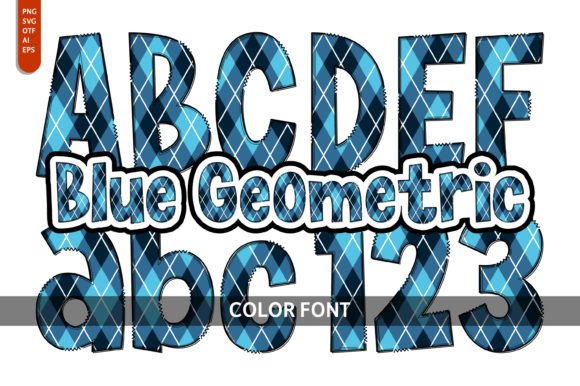
Blue Geometric: A Playful Display Font for Creative Projects
Finding a font that balances playful energy with clear readability can feel like a search for a needle in a haystack. Many typefaces lean too far into whimsy, sacrificing legibility, or become too sterile when aiming for clarity. Blue Geometric occupies a unique space in modern typography. It’s a creative font designed specifically for projects that need to inject personality, color, and a distinct artistic flair. This isn’t just another typeface; it’s a design asset built to make an immediate visual impact.
Visual Style and Personality
At its core, Blue Geometric is a color font. This means the blue geometric patterns and shapes you see in its preview are baked directly into the font file. When you type, you get those colorful, structured designs without needing to apply gradients or textures manually. The visual character is bold and engaging. Each letterform combines geometric precision with a sense of fun, making it a standout display font. It avoids the rigidity of some sans serif fonts while steering clear of the overly casual feel of many handwritten or script fonts. The result is a typeface that feels contemporary, artistic, and intentionally designed to capture attention.
Where Blue Geometric Truly Shines
The strength of a font like Blue Geometric lies in its ability to set a specific tone instantly. It’s ideal for any project where the goal is to be noticed and remembered. Think about the projects where visual personality is non-negotiable:
- Children's Books and Educational Materials: This is a natural fit. The font’s colorful, playful aesthetic creates an inviting and engaging reading experience for young audiences. It supports the narrative with its visual charm, making pages feel dynamic and fun.
- Event Invitations and Greeting Cards: For birthday parties, baby showers, or festive announcements, Blue Geometric adds a layer of celebration. It conveys joy and creativity, setting the mood before the recipient even reads the details.
- Branding for Youthful or Creative Audiences: If your brand identity needs to speak to a demographic that values innovation and fun—think toy stores, art studios, or kids' clothing lines—this font can become a cornerstone of your visual language. It helps build brand recognition through its distinctive look.
- Posters and Social Media Graphics: In a crowded digital or physical space, a bold display font cuts through the noise. Use Blue Geometric for headlines on posters, Instagram stories, or Pinterest pins to stop the scroll and make a memorable impression.
It’s also a fantastic choice for packaging design for products aimed at families or the creative market. The font’s inherent playfulness can make a product feel more approachable and exciting on the shelf.
Practical Guidance for Using Blue Geometric
Adopting a new premium font into your workflow requires more than just liking its look. You need to ensure it’s the right tool for the job and that you can use it effectively. Here’s how to approach Blue Geometric with a practical mindset.
Evaluating Project Fit and Readability
First, assess your project’s primary goal. Is it to inform, persuade, or delight? Blue Geometric excels at the latter. For long-form body text in a report or a novel, it would be the wrong choice. Its detailed, decorative nature is best reserved for headlines, logos, and short, impactful phrases. Always prioritize readability. Use it for titles where the text is large, and pair it with a clean, simple serif font or sans serif font for any supporting copy. This contrast creates a strong visual hierarchy, guiding the reader’s eye naturally.
Font Pairing and Technical Considerations
A successful design often hinges on smart font pairing. Because Blue Geometric is a strong visual statement, it needs a partner that complements without competing. A neutral, modern sans serif font for body text works beautifully. Alternatively, a classic serif font can create an interesting juxtaposition of playful and traditional. Avoid pairing it with other highly decorative script or handwritten fonts, as this can create visual clutter.
In the end, Blue Geometric is more than just a set of letters. It’s a strategic design asset. Used thoughtfully, it can elevate a project from ordinary to memorable, inject personality into a brand, and create a joyful connection with your audience. Its value lies in its specificity—it knows exactly what it is and delivers that playful, artistic feel with precision.